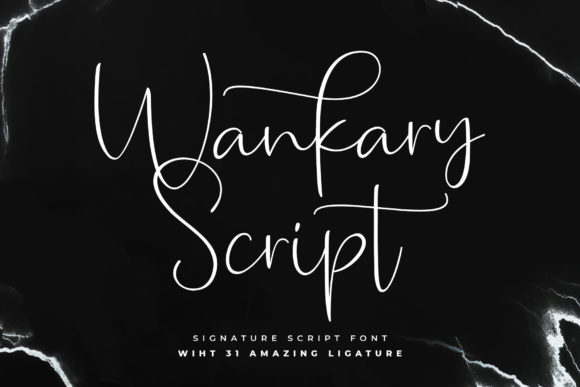
Wankary Script: The Organic Handwritten Font That Elevates Creativity
In a world where digital design dominates, there's something undeniably special about the human touch. Wankary Script captures that essence with its organic, handwritten style, making it a versatile choice for a wide range of creative applications. From branding to wedding invitations, this font stands out with its natural flow and elegant curves, offering a unique way to express individuality in design.
As professionals and creators seek ways to differentiate their work, fonts like Wankary Script are becoming increasingly relevant. Its PUA encoded nature allows designers to access all glyphs and swashes with ease, providing flexibility and control over every detail. Whether you're crafting a logo, designing product packaging, or personalizing a signature, Wankary Script adds a layer of authenticity that machine-generated text often lacks.
The Rise of Handwritten Fonts in Modern Design
Over the past few years, there has been a noticeable shift toward more personal and authentic visual identities. This trend is especially evident in branding, where businesses are moving away from rigid, corporate styles in favor of something more relatable. Handwritten fonts have become a popular choice because they convey warmth, approachability, and a sense of craftsmanship.
Wankary Script aligns perfectly with this movement. Its irregular yet balanced strokes mimic the natural variation found in real handwriting, which makes it ideal for projects that require a human feel. For instance, a small business owner might use this font on their website or marketing materials to create a connection with customers who value authenticity.
Additionally, the rise of social media and content creation has increased the demand for visually engaging elements. Influencers, bloggers, and marketers often need to stand out in crowded feeds, and a well-chosen font can make all the difference. Wankary Script’s unique character helps content creators capture attention while maintaining a professional appearance.
Practical Applications of Wankary Script
While Wankary Script is incredibly versatile, certain uses highlight its strengths more than others. Here are some practical examples of how this font can enhance various projects:
- Branding: Incorporating Wankary Script into logos or brand assets can give a company a distinctive identity that feels both modern and personal.
- Wedding Invitations: With its elegant and flowing style, this font is perfect for creating romantic and heartfelt invitations that leave a lasting impression.
- Product Packaging: Adding Wankary Script to labels or packaging designs can help products stand out on shelves by appealing to consumers who appreciate thoughtful, handcrafted aesthetics.
- Promotional Materials: Flyers, banners, and advertisements benefit from the dynamic energy of Wankary Script, making them more engaging and memorable.
- Signatures and Personalization: Using this font for signatures or personalized messages adds a touch of uniqueness and sincerity.
Each of these applications benefits from the font’s ability to blend seamlessly into different contexts while still maintaining its distinct personality. It’s not just about looking good—it’s about communicating the right message in the right way.
Why PUA Encoding Matters for Designers
One of the standout features of Wankary Script is its PUA encoding, which simplifies the process of accessing special characters and stylistic variations. Traditional fonts often require additional tools or workarounds to access extended glyphs, but with PUA support, designers can easily customize their text without the need for complex software.
This feature is particularly valuable for professionals who rely on precise typographic control. Whether you’re working on a detailed illustration, a custom illustration, or a high-resolution print project, having full access to all glyphs ensures that your final output meets the highest standards. It also makes Wankary Script an excellent choice for multilingual projects, as it supports a wide range of characters and symbols.
How to Get the Most Out of Wankary Script
To fully leverage the potential of Wankary Script, consider the following tips:
- Experiment with spacing and sizing: Since it’s a script font, adjusting letter spacing and line height can dramatically affect readability and visual appeal.
- Pair it with complementary fonts: Combining Wankary Script with a clean sans-serif or serif font can create a balanced and harmonious design.
- Use it sparingly: While it’s eye-catching, overusing a script font can lead to clutter. Reserve it for key elements like headlines or accents.
- Test it across platforms: Ensure that the font displays correctly on different devices and screen sizes, especially if it’s used for web-based content.
By applying these best practices, you can ensure that Wankary Script enhances your designs rather than overwhelming them.